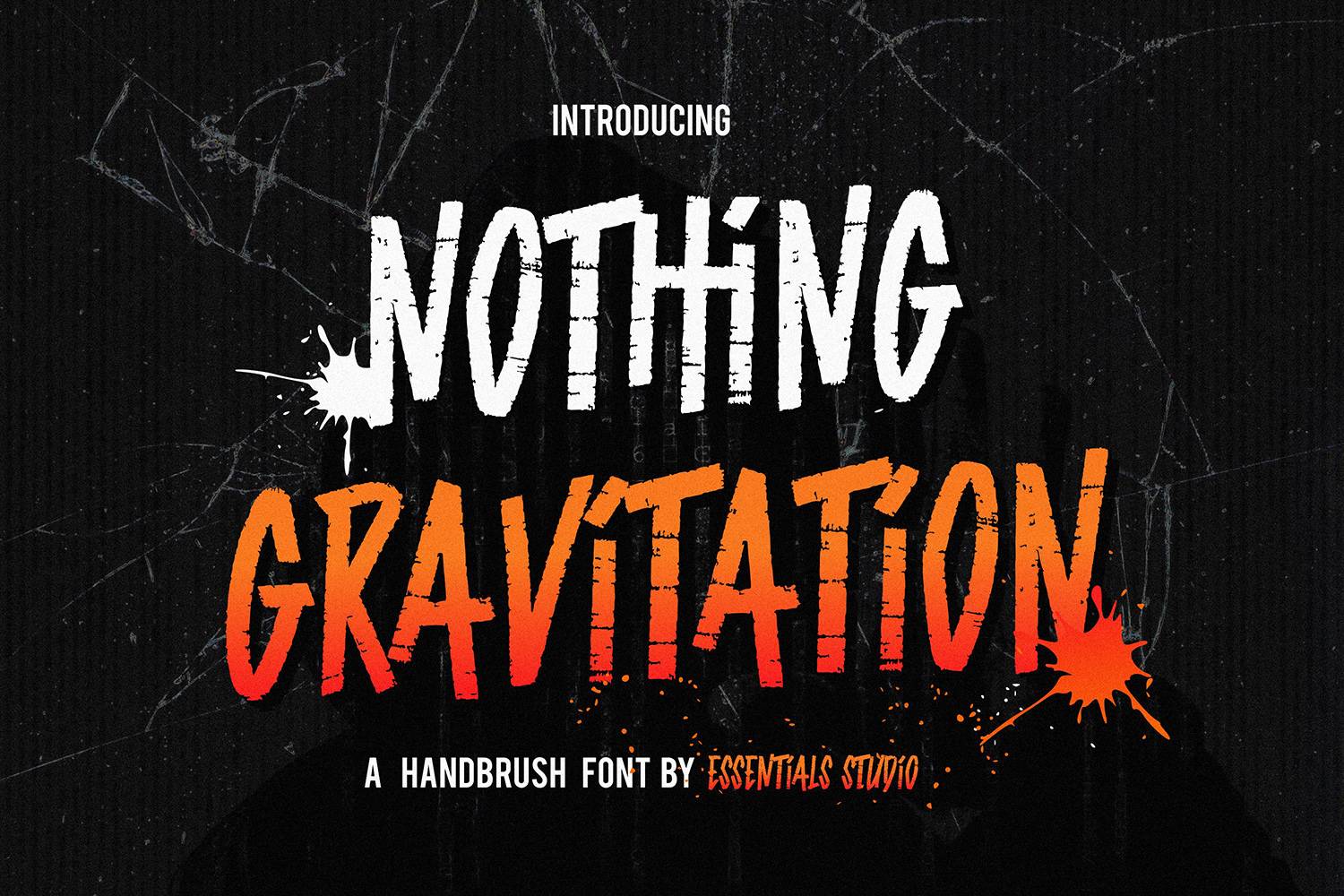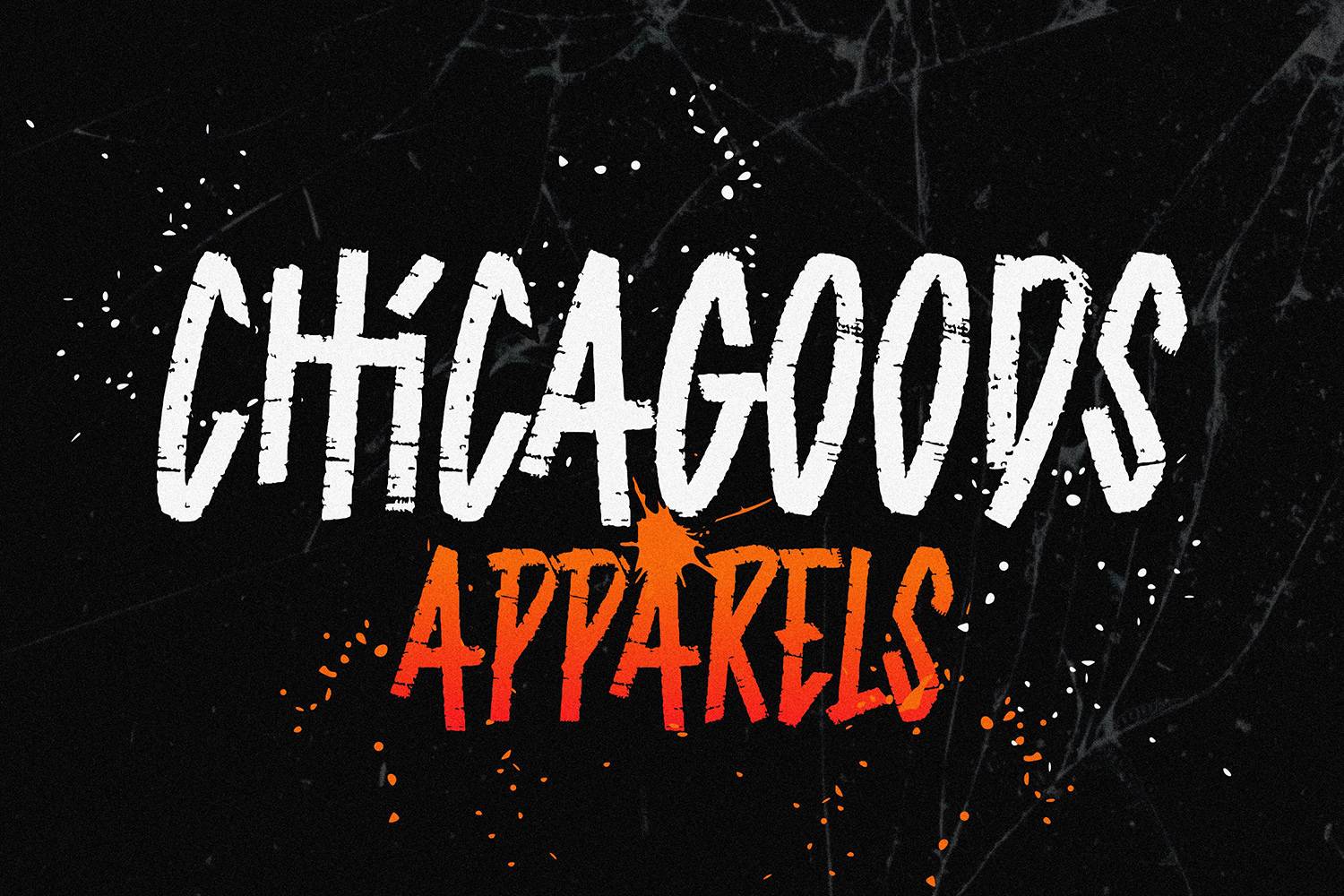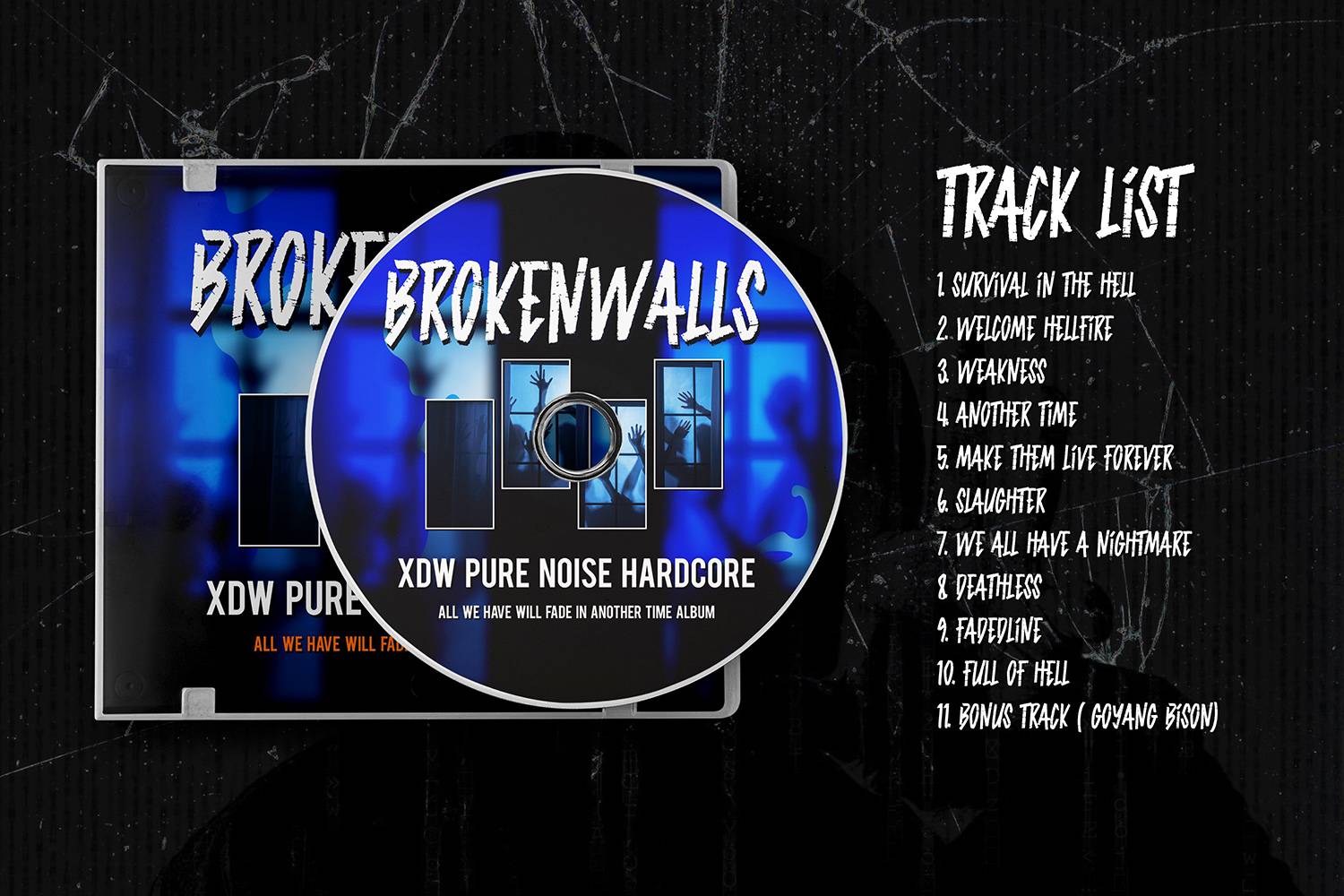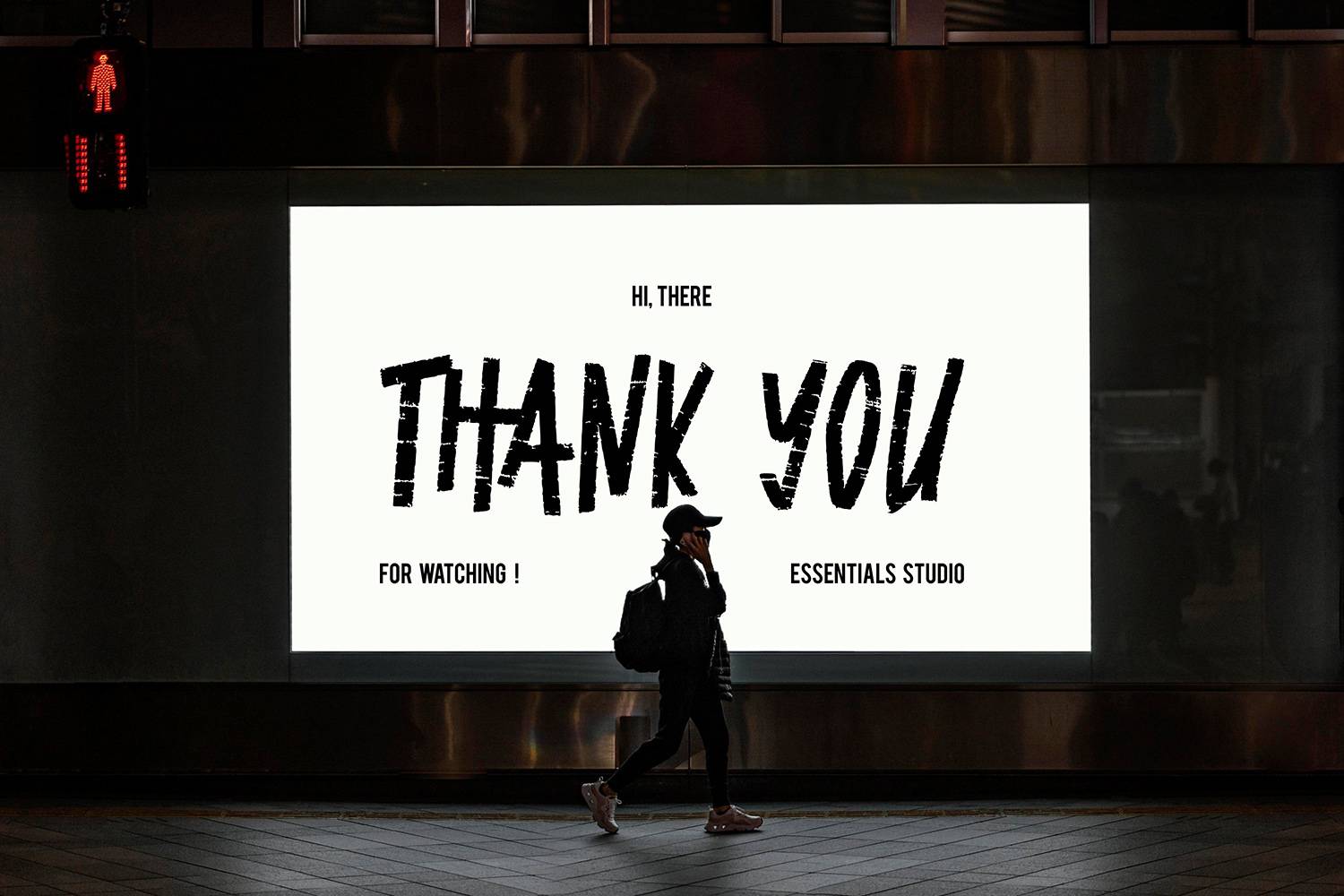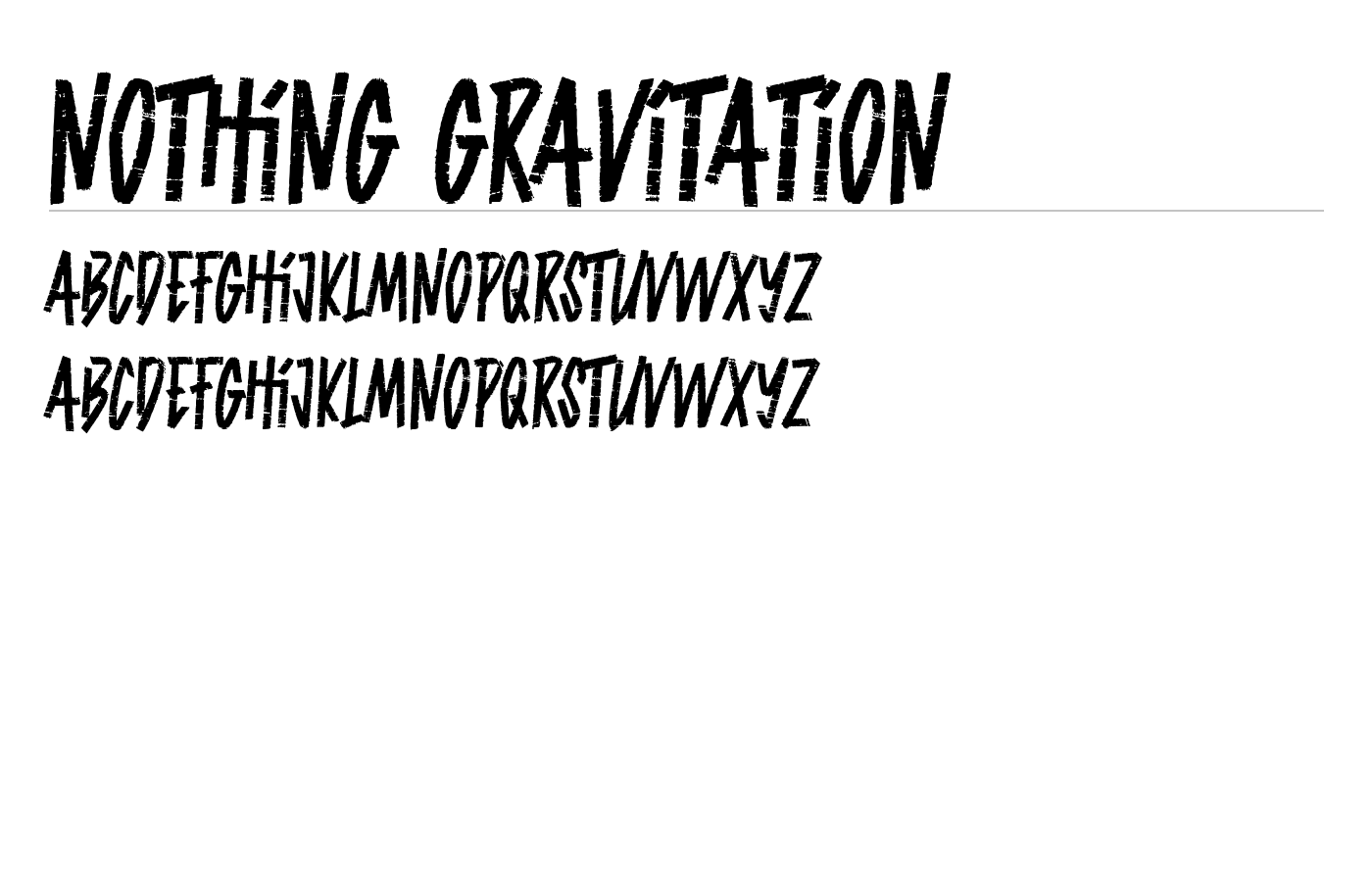
Nothing Gravitation is a bold, condensed sans serif font with a rough, textured stroke that gives it an energetic and rebellious character. Its all-caps design and slightly irregular letterforms convey a dynamic, hand-crafted feel, making it perfect for edgy posters, logos, and branding that demand a strong, unconventional presence. This font stands out with its raw, distressed style, ideal for projects wanting to capture an urban or alternative vibe.
Nothing Gravitation Font
About Nothing Gravitation Font
| Designer | Annas Rifky Anhar |